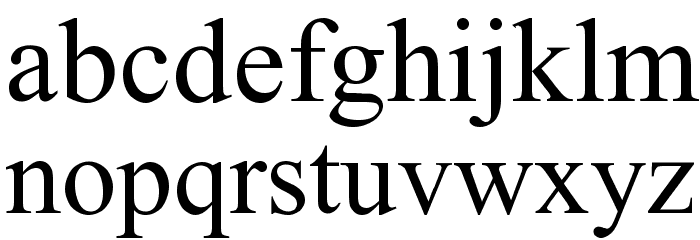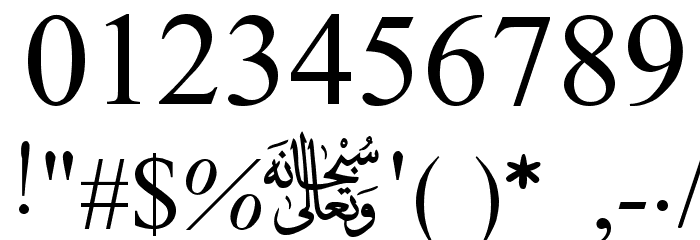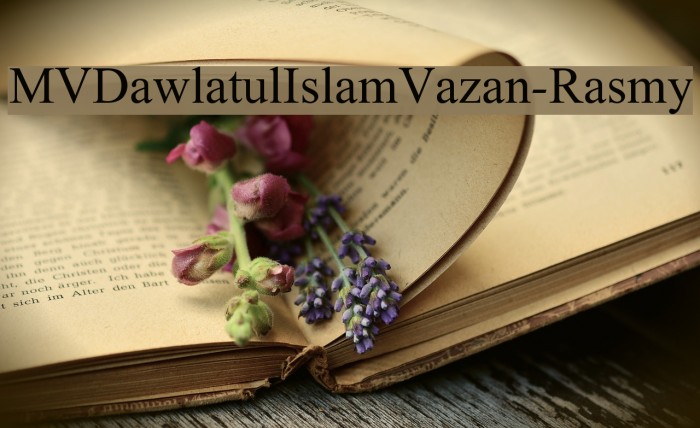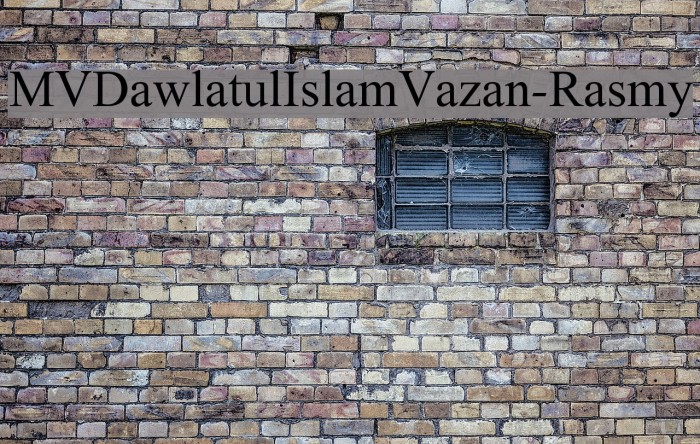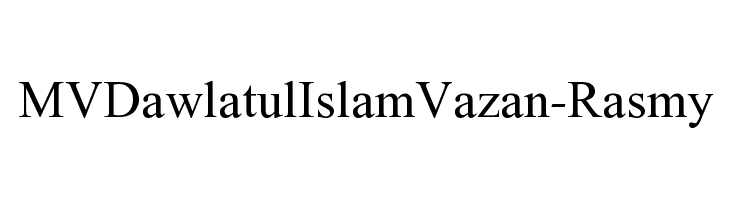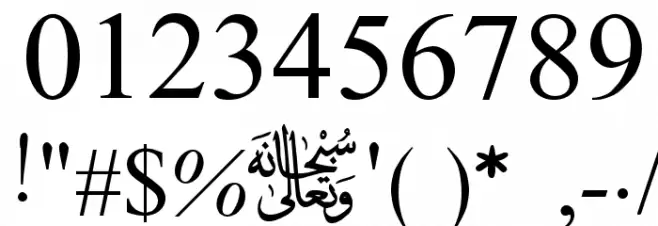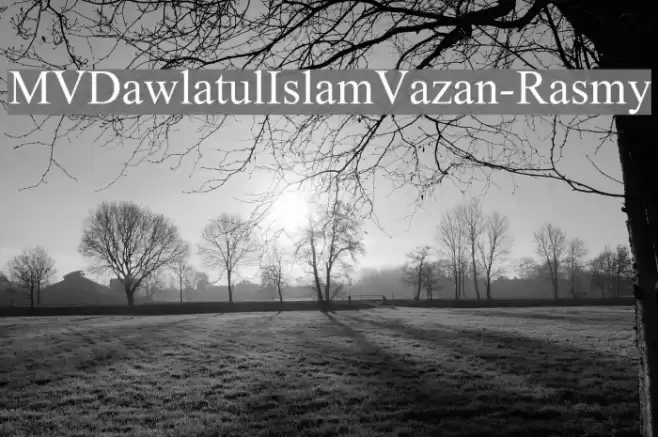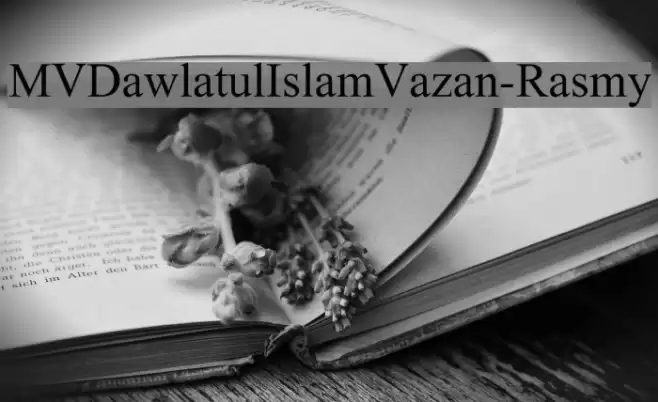
MVDawlatulIslamVazan-Rasmy Font
This font exhibits a classic serif style with elegant and refined strokes. The uppercase letters are bold and commanding, while the lowercase letters maintain a consistent flow with slight variations in stroke width. The numerals are clear and well-defined, making them easily readable. Special characters are included, adding versatility to the font. The overall design is balanced, with a harmonious blend of traditional and modern elements, making it suitable for a variety of applications.
A classic serif font with elegant strokes and balanced design.
- Proposed Projects: Ideal for editorial design, book covers, formal invitations, and branding projects requiring a touch of elegance.
- Category: Serif
- Overall Style: Classic